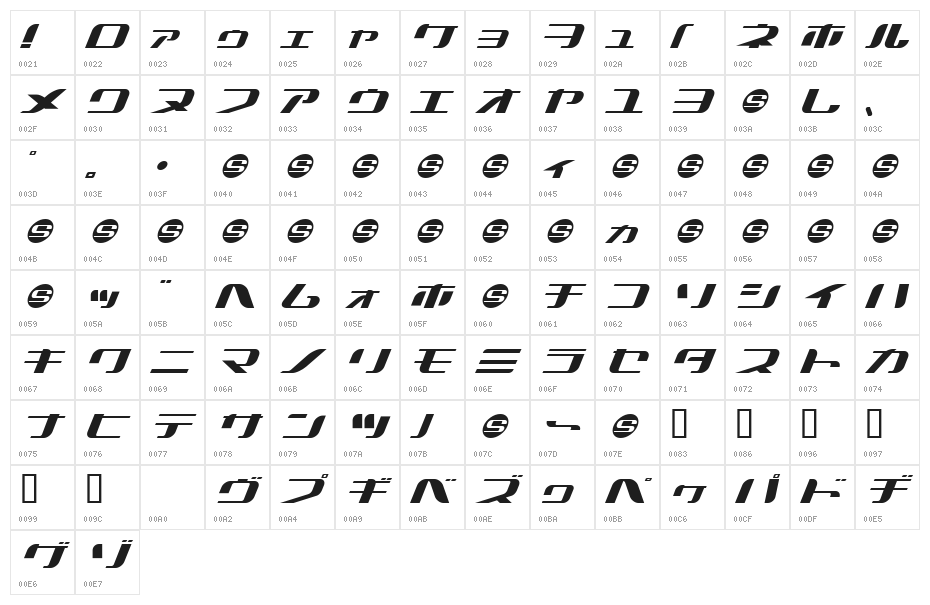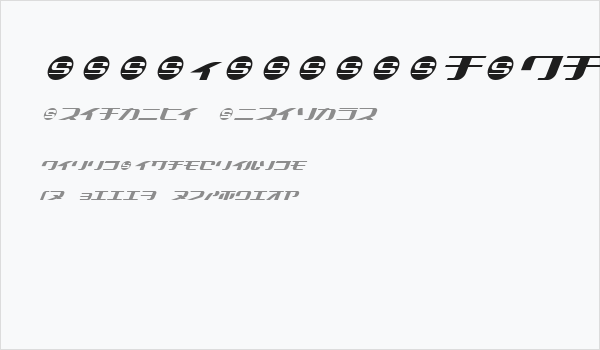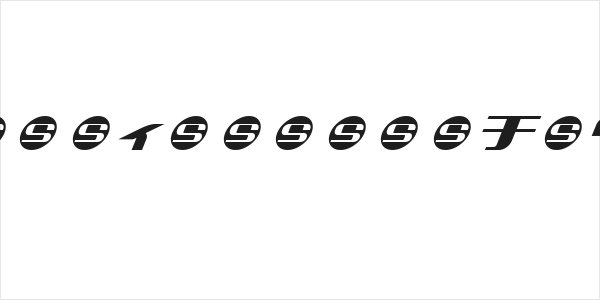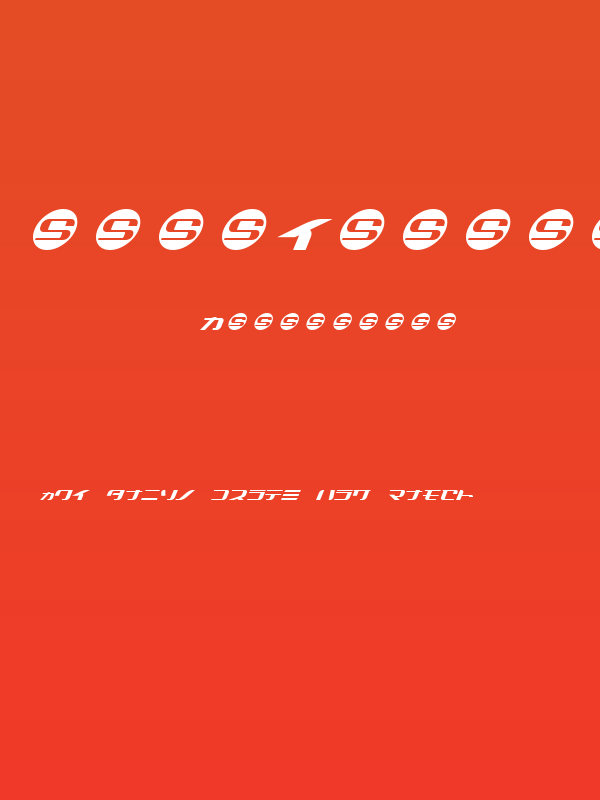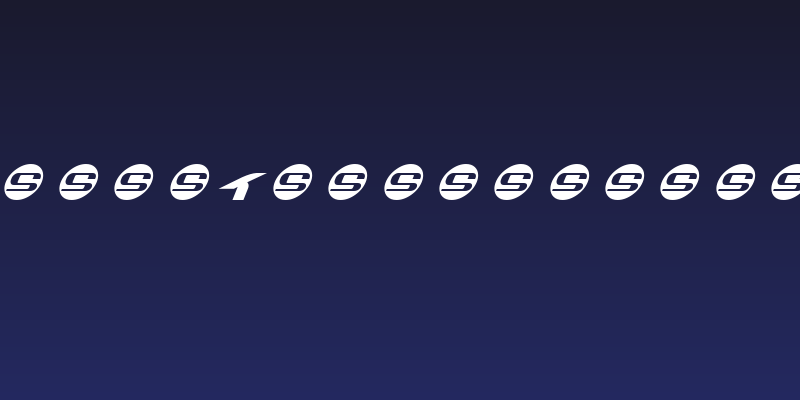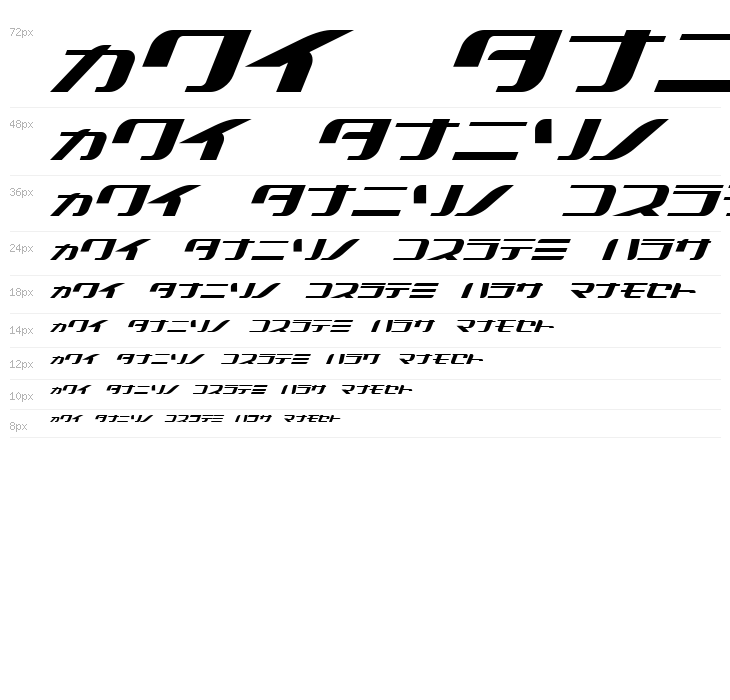
SUMMERCAMPKaSha Font
SUMMERCAMPKaSha Description
This font features a bold and futuristic design with a strong emphasis on geometric shapes. The characters are enclosed within circular forms, creating a unique and cohesive look. The style is reminiscent of digital or sci-fi themes, with a modern twist. The bold strokes and consistent width give it a powerful presence, making it suitable for attention-grabbing headlines or logos. The font's distinct style is both eye-catching and memorable, perfect for projects that require a modern and innovative touch.
| Proposed Projects | Ideal for sci-fi themed posters, tech company logos, video game titles, or any project needing a modern, digital feel. |